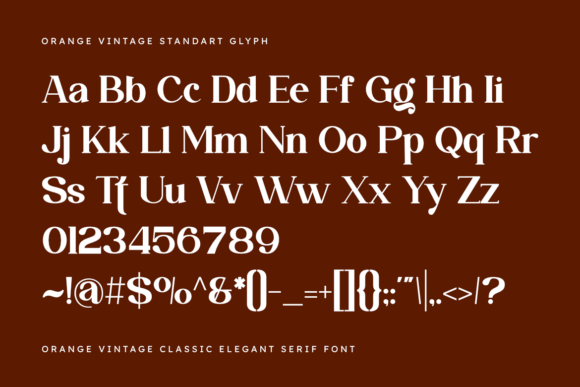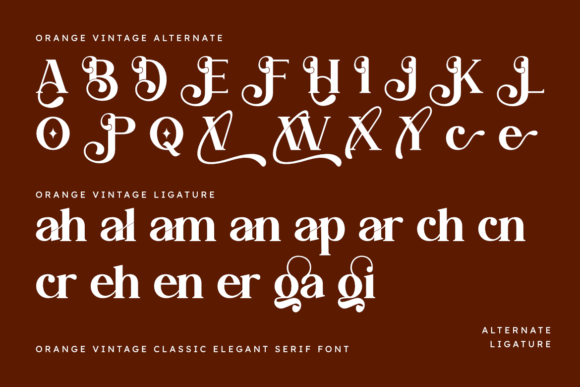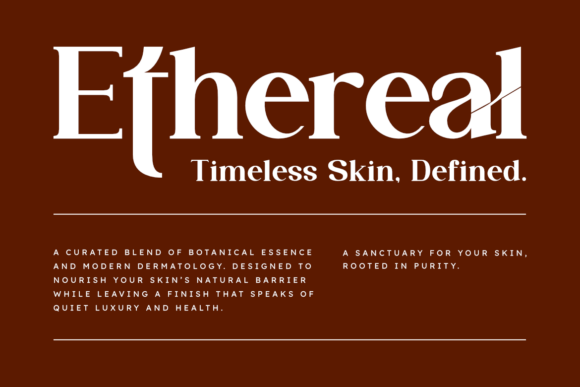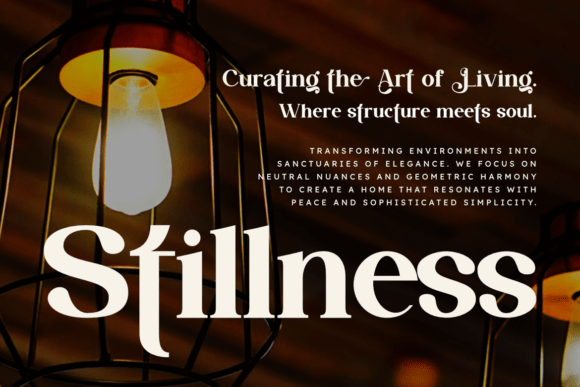
Orange Vintage Font
Orange Vintage is a bold and elegant classic serif font designed for impactful typography. With its refined structure and beautiful decorative strokes, this font is perfect for strong headlines, modern posters, album covers, lifestyle graphics, branding, and high-impact advertising. Its clean and confident design gives your visuals a striking and professional look.